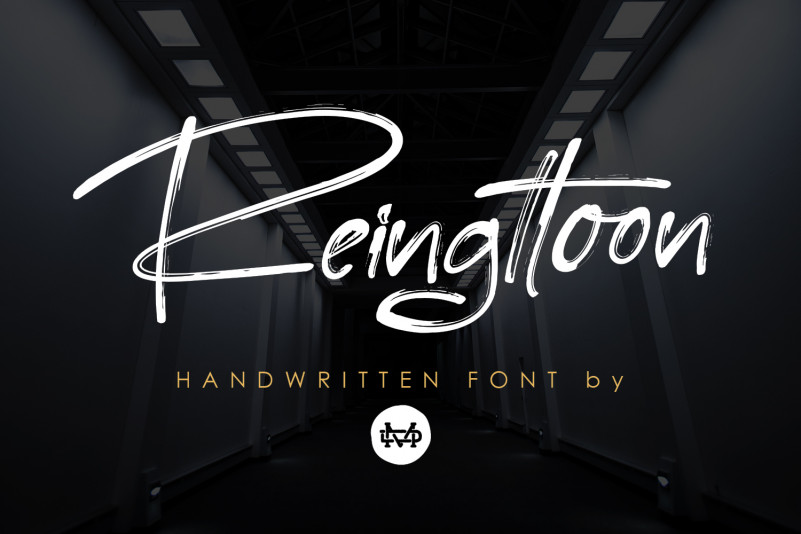
Reingttoon – Handwritten Brush Font
Reingttoon Font is a handbrush. This font perfect for poster design, book covers, merchandise, fashion campaigns, newsletters, branding, advertising, magazines, greeting cards, album covers, and quote designs and more.